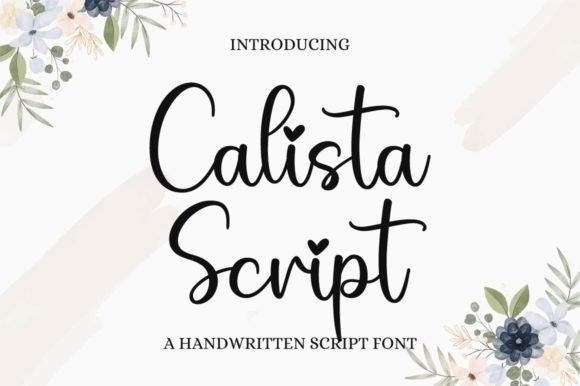
Prepare to be captivated by Calista Script, an exquisite handwritten font family that breathes life into your creative endeavors. Its sweeping strokes and elegant curves evoke a sense of timeless beauty, making it the perfect choice for expressing heartfelt messages, profound thoughts, and captivating designs.
With Calista Script, you hold the key to unlocking a world of creative possibilities. Its versatile nature seamlessly adapts to a myriad of projects, from elegant wedding invitations and heartfelt greeting cards to striking social media posts and captivating blog headers. Let your imagination soar as you explore the endless possibilities that await.
Immerse yourself in the artistry of Calista Script and discover a font that ignites your passion. Its graceful lines and delicate flourishes add a touch of charm and sophistication to any design, leaving a lasting impression on your audience. Prepare to be mesmerized as your words take on a life of their own, captivating and enchanting all who behold them.
Step into a realm where creativity knows no bounds. Calista Script empowers you to effortlessly craft stunning logos that exude professionalism and leave an unforgettable mark. Its unique character adds a touch of elegance to your branding, ensuring that your business stands out from the crowd. With Calista Script, you hold the power to create a visual identity that speaks volumes about your brand's essence.
Unleash your inner artist and transform ordinary quotes into extraordinary masterpieces. Calista Script's enchanting strokes breathe life into words, turning them into works of art. Its graceful curves add a touch of whimsy and charm, inviting your audience to immerse themselves in your message and experience the emotions it evokes. Prepare to captivate and inspire with every quote you share.